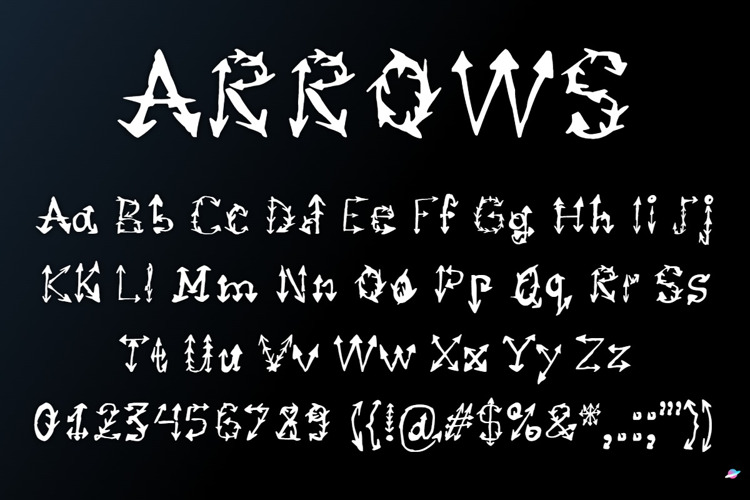
ARROWS Font
ARROWS is a font created by Matt Mars (a.k.a. MARSUG, a.k.a. WESHER) in 2023.
It supports both Latin and Cyrillic characters.
This font was first used in "ICOMBO GAME" (2023).